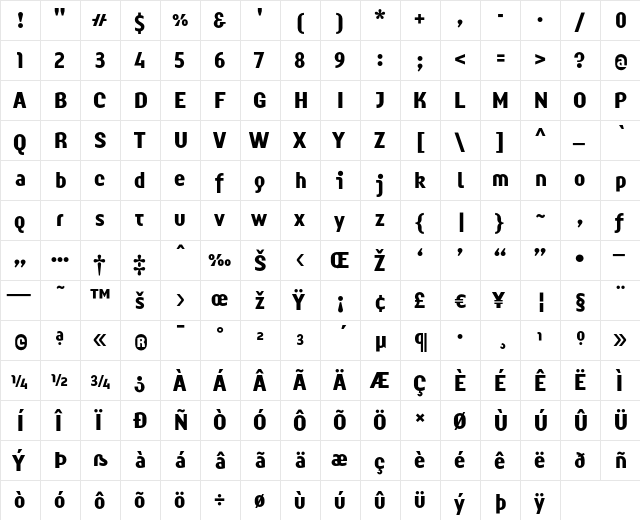
OgilveLFBold Regular
Design Context for OgilveLFBold Typeface
OgilveLFBold offers clean, dependable letterforms without strong stylistic allegiance, making it a practical choice for designers who need flexibility. The heavy weight commands attention and anchors typographic hierarchies.
Pro Tip: Pair OgilveLFBold with a font of contrasting weight or personality to build a more expressive typographic hierarchy.